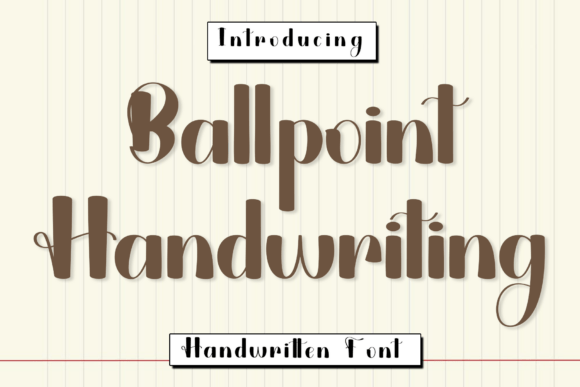
Introducing Balpoint Handwriting Font: The Epitome of Freshness and Elegance
In the realm of typography, few fonts manage to capture the essence of casual elegance and freshness as effectively as the Balpoint Handwriting Font. This charming handwritten font has been designed to infuse a sense of laid-back vibe into various design projects, making it an ideal choice for creatives and designers looking to add a personal touch to their work. Whether you’re crafting a brand identity, designing invitations, or creating engaging social media graphics, Balpoint Handwriting Font is poised to bring a unique blend of warmth and personality to your designs.
The Characteristics of Balpoint Handwriting Font
Balpoint Handwriting Font is distinguished by its fluid strokes and organic lines, which collectively contribute to its effortless and casual appearance. The font’s design is inspired by the natural flow of handwriting, making each letter and word feel personal and unique. This characteristic not only adds a human touch to your designs but also makes the content more approachable and relatable to the audience.
Fluid Strokes for a Dynamic Look
The fluidity of the strokes in Balpoint Handwriting Font is one of its standout features. Unlike more rigid and traditional fonts, the fluid strokes of Balpoint give it a dynamic and lively appearance. This dynamism is particularly effective in capturing the attention of viewers and engaging them with the content. Whether it’s used in headings, body text, or captions, the fluid strokes ensure that the text does not appear static or lifeless.
Organic Lines for a Natural Feel
The organic lines that define Balpoint Handwriting Font contribute significantly to its natural and effortless look. These lines are reminiscent of handwriting, where perfection is often sacrificed for personality and character. The organic nature of the font makes it versatile, allowing it to complement a wide range of design themes and styles without appearing out of place.
Applications of Balpoint Handwriting Font
The versatility of Balpoint Handwriting Font is one of its most appealing attributes. Its unique blend of elegance and casualness makes it suitable for a variety of design applications. Here are some of the areas where Balpoint Handwriting Font truly shines:
Branding and Logo Design
In branding and logo design, establishing a strong and memorable visual identity is crucial. Balpoint Handwriting Font can be used to create logos, wordmarks, and taglines that are not only visually appealing but also convey a sense of approachability and warmth. Brands that wish to appear friendly, youthful, and vibrant can benefit significantly from incorporating Balpoint into their branding materials.
Invitations and Event Design
For invitations and event designs, Balpoint Handwriting Font offers a perfect blend of sophistication and casual elegance. Whether it’s a wedding invitation, a birthday party invite, or an announcement for a corporate event, Balpoint adds a touch of personal warmth that makes the invitation feel special and appreciated.
Social Media Graphics and Content
In the digital age, social media platforms have become essential channels for communication and content sharing. Balpoint Handwriting Font can be effectively used in social media graphics, blog posts, and digital content to make the text more engaging and visually appealing. Its friendly and approachable vibe helps in increasing audience engagement and making the content more shareable.
Why Choose Balpoint Handwriting Font?
Choosing the right font for a design project can be a daunting task, given the numerous options available. However, Balpoint Handwriting Font stands out for several reasons:
Unique and Memorable
Balpoint Handwriting Font offers a unique and memorable look that can help your designs stand out from the crowd. Its distinctive appearance ensures that your content leaves a lasting impression on viewers.
Versatile and Adaptable
The versatility of Balpoint Handwriting Font is another significant advantage. It can be used across various design projects and themes, making it a valuable addition to any designer’s toolkit.
Enhances Readability and Engagement
Balpoint Handwriting Font not only adds aesthetic value to your designs but also enhances readability and engagement. Its clear and flowing script makes it easy to read, while its charming appearance keeps the audience engaged.
In conclusion, Balpoint Handwriting Font is a versatile and charming typeface that brings a sense of freshness and casual elegance to any design project. Its fluid strokes and organic lines evoke a laid-back vibe, making it perfect for a wide range of applications, from branding and invitations to social media graphics. By choosing Balpoint Handwriting Font, designers can add a touch of warmth and personality to their work, making it more engaging and memorable for the audience.